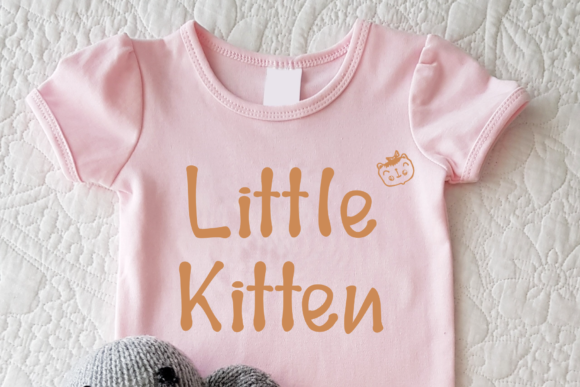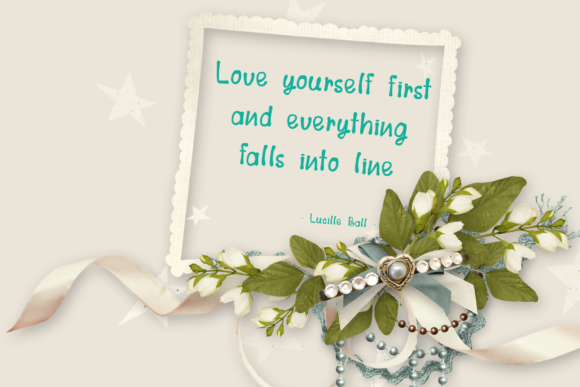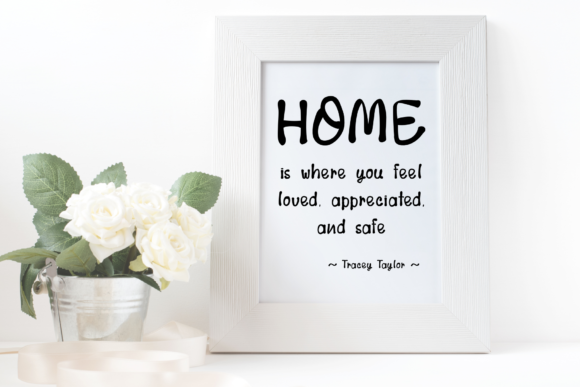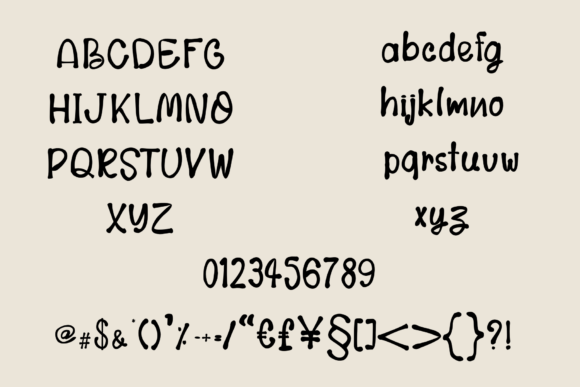
Lovely Nw Font
About Lovely Nw Font
Lovely Nw is a simple and cute handwritten font. Its sweet brush as well as its casual letters make this font incredibly versatile, fitting any design that needs a friendly touch.